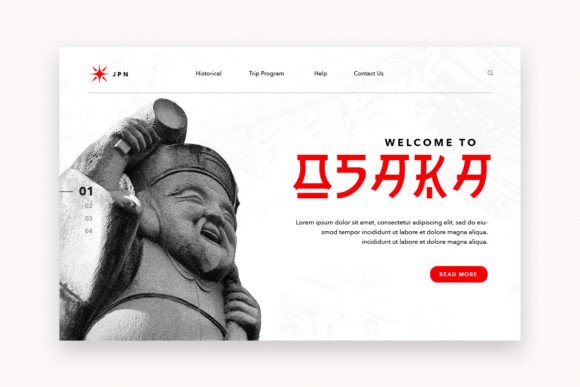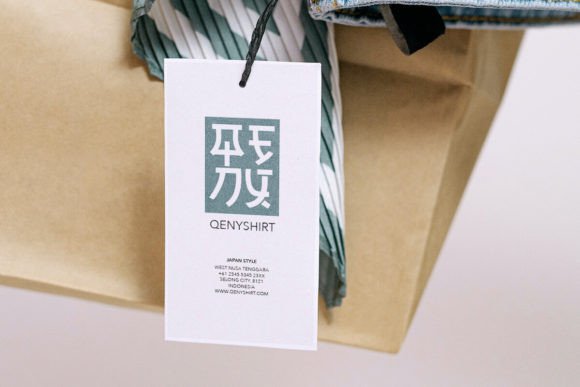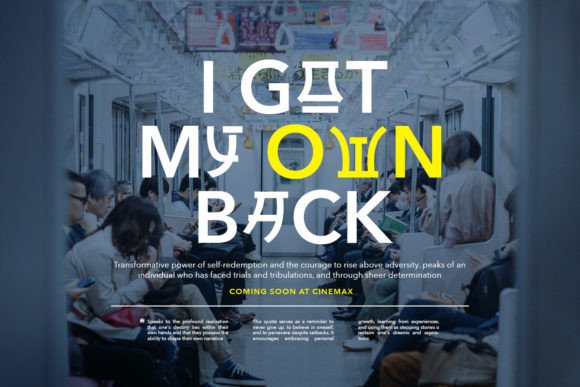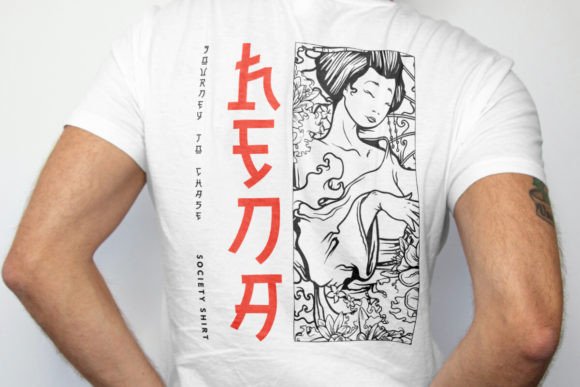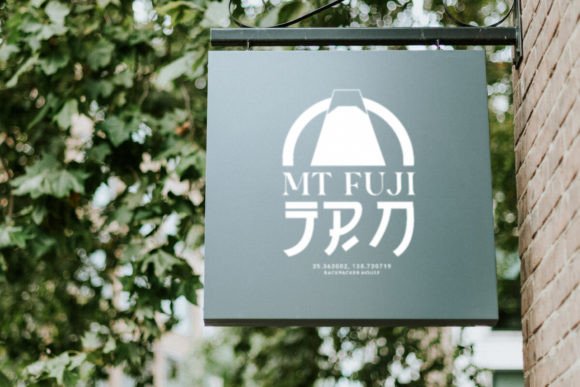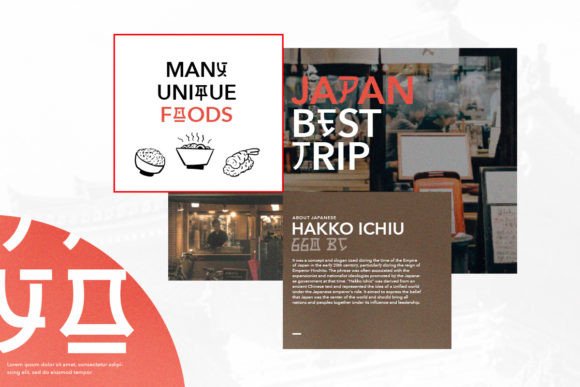
Introduction to Jasuke Font Font
Fonts play a crucial role in design, and the Jasuke Font font is a typeface that brings both character and versatility to any project. Whether you’re working on a branding project, a website, or a print design, the Jasuke Font font offers a unique style that can elevate your work.
Jasuke is a Japanese-inspired font crafted with exceptional taste, seamlessly merging ethnic and cultural elements into each glyph.
This font is ideal for enthusiasts of Japanese culture, as well as for those involved in Japanese restaurants, clothing brands, arts, and businesses associated with Japanese culture .
The Jasuke Font font is more than just a typeface – it’s a design tool that helps you communicate your message with style and clarity. Its unique character set and versatile design make it suitable for a wide range of applications, from elegant invitations to bold headlines.
With its carefully crafted letterforms and balanced proportions, the Jasuke Font font ensures readability and visual appeal across all mediums.
The Jasuke Font font stands out with its unique design, exceptional readability, and versatility across various design applications.